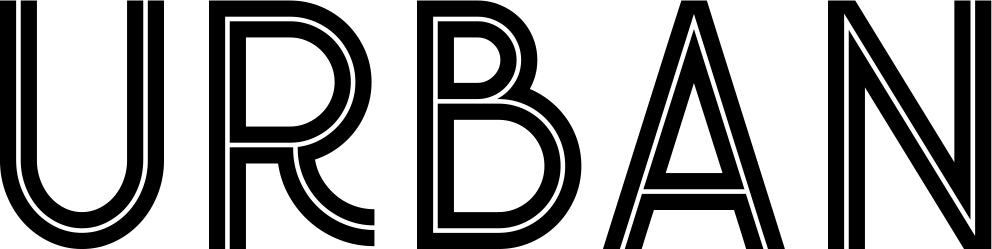
Urban Font
The characters of this urban font are designed in parallel lines, which is a reminder of posters and flyers back in the 90s. This retro font helps you spend one of the best-selling days for nostalgic designs.
One of the limitations of Urban font is that it does not have lowercase letters, so you can search for other fonts and make a great match with them. This 90s font is excellent for designing music covers, and casino flyers.